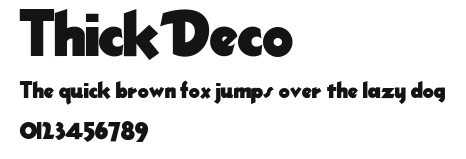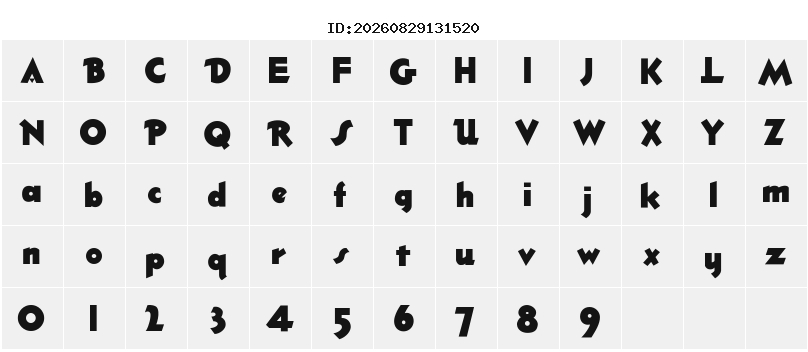
• Font Name: ThickDeco
• Full Font Name: ThickDeco
• Copyright: Once called Go Bananas. Traced form an old lettering book
• Manufacturer: Mario Arturo
About ThickDeco.ttf
ThickDeco.ttf is a modern, elegant sans-serif font designed for ultimate readability and visual harmony. Perfect for branding, headlines, web design, and print materials.